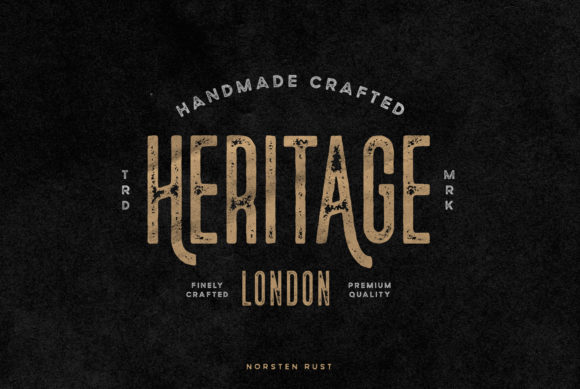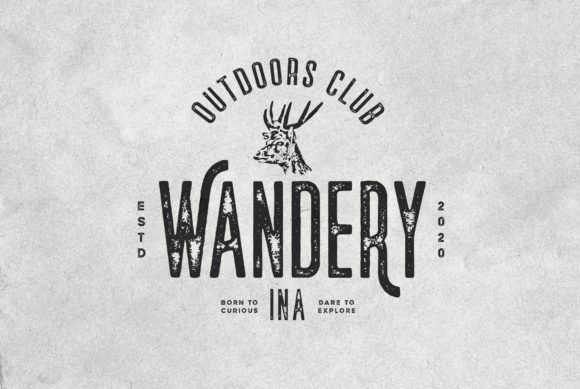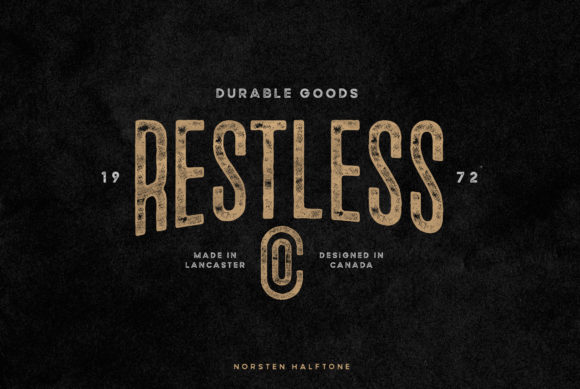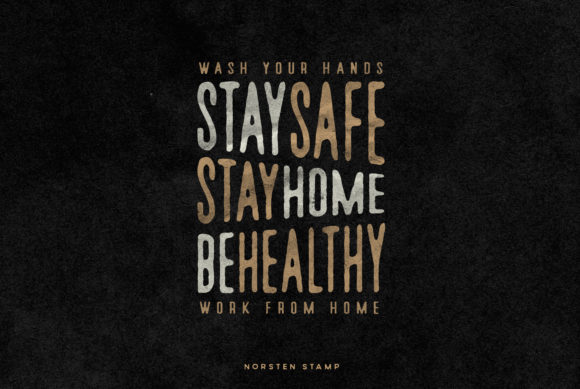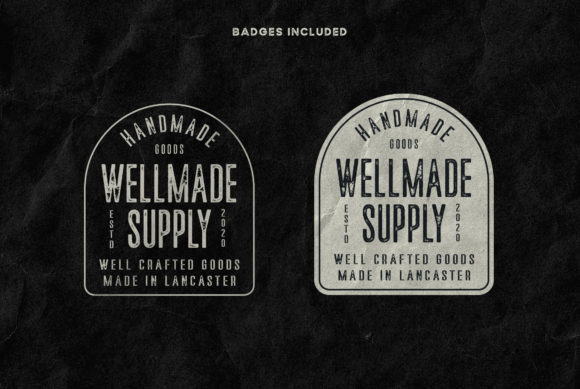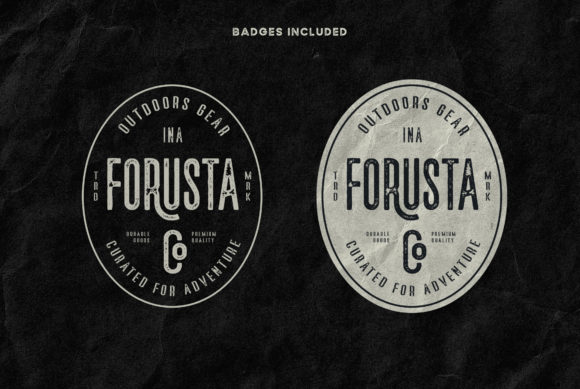
Introduction to Norsten Font
Have you ever stared at a blank canvas, waiting for the perfect design idea to strike? For many creatives, it’s that moment of inspiration that sparks a new project, and the right font can be the missing piece that brings it all together. Introducing the Norsten Font, a stunning condensed sans serif font that’s about to become your new go-to design resource.
With its unique vintage look and four amazing styles, the Norsten Font is the perfect addition to any creative project. Whether you’re working on a logo, a branding campaign, or a digital product, this high-quality font is sure to add a touch of sophistication and elegance. Plus, with its transparent background, you can easily customize it to fit your design needs.
Key Features of Norsten Font
- High-quality, elegant design suitable for creative projects, with a transparent background that allows for versatile use.
- Comes in 5 different font styles (Regular, Italic, Bold, Bold Italic, and Outline) for added versatility.
- Supports a wide range of languages, including Latin, Cyrillic, and Greek scripts.
- Features a high-resolution design, suitable for use in print and digital applications at resolutions up to 300 DPI.
- Designed to be easily scalable, making it perfect for use in logos, typography, and other creative projects.
Honest Review: Norsten Font
I recently stumbled upon the Norsten Font, a free design resource that’s caught my attention. As a designer, I’m always on the lookout for high-quality fonts that can elevate my creative projects.
- ✨ The Norsten Font has a unique, modern design that’s perfect for contemporary projects.
- ✨ The font has a transparent background, allowing for easy customization and seamless integration into any design.
However, I do have a few reservations:
- ⚠️ The font’s character set is limited, which may not be suitable for projects requiring a wide range of languages.
- ⚠️ Some users may find the font’s bold weight a bit too bold, which could be overwhelming in certain contexts.
Overall, I think the Norsten Font is a solid addition to any designer’s toolkit. While it may not be perfect, its unique design and transparent background make it a valuable resource for creative projects. Just be aware of its limitations, and use it judiciously in your designs.
Tips for Getting the Most Out of Norsten Font
To get the most out of the Norsten Font, use it on a transparent background to create a clean and modern design. You can also pair it with other fonts to create a unique typography style.
The Norsten Font is suitable for various creative projects, including logo design, branding, and infographics. It’s also a great choice for creating social media graphics, flyers, and brochures.